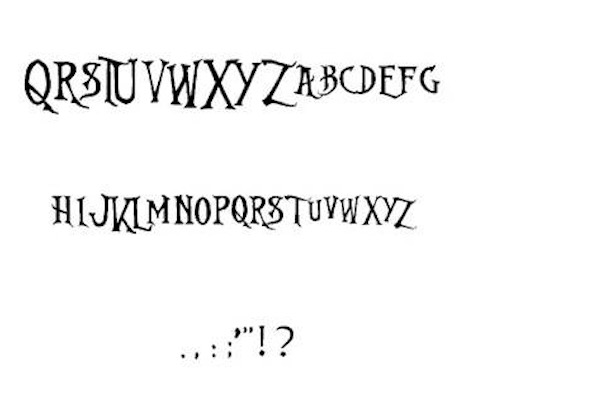
Nightmare Before Christmas Font is a fancy logo typeface with many groovy characterized and it will make your designs with many exciting features.
Nightmare Before Christmas Disney Font